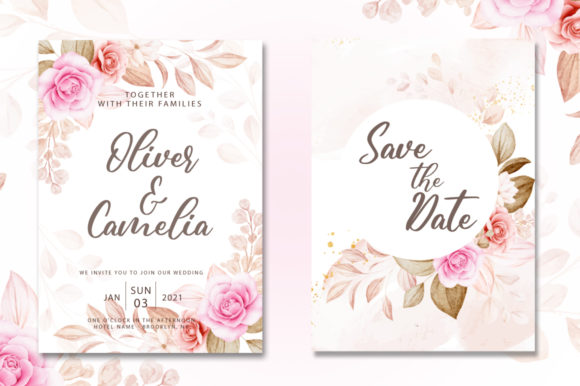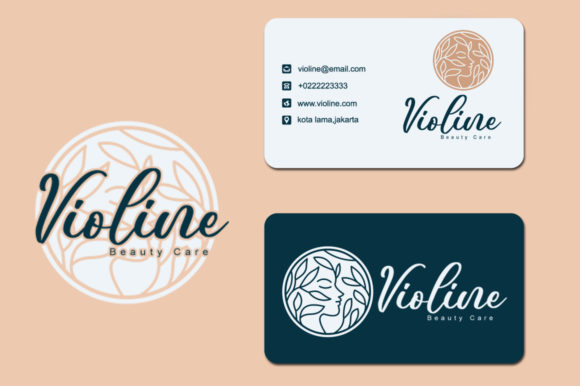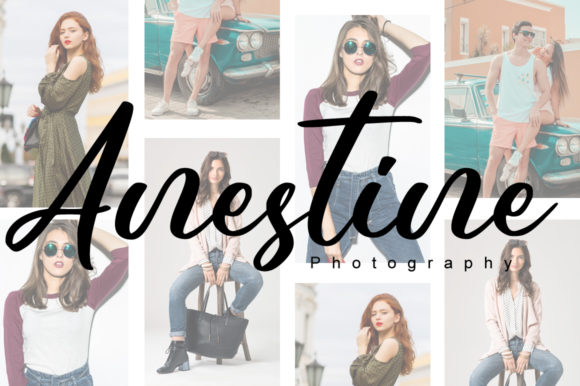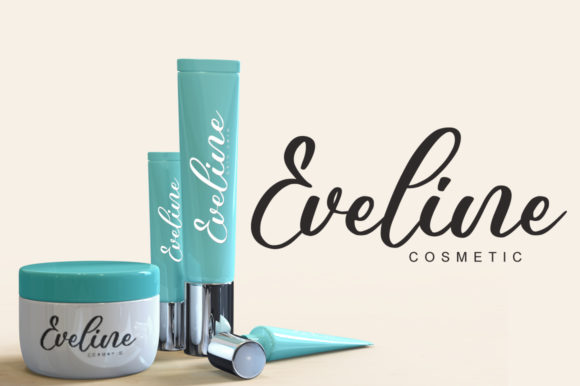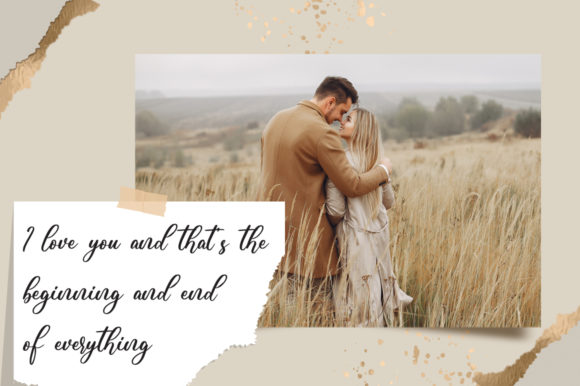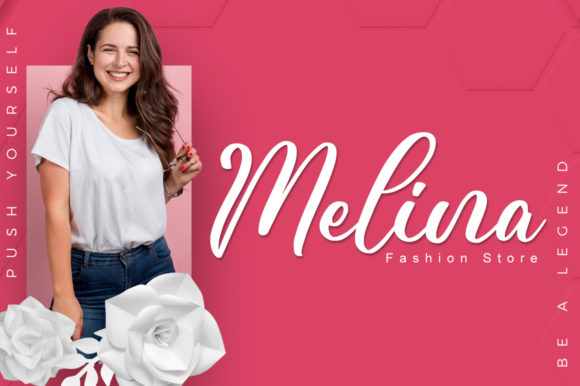
The Beauty of Beautifully Font: A Designer’s Dream Come True
I still remember the time I was working on a wedding invitation project, and my client asked me to create a custom design that exuded elegance and sophistication. I spent hours scouring the internet for the perfect font, but nothing seemed quite right. That was until I stumbled upon Beautifully Font, a stunning script font that has since become a staple in my design toolkit. In this article, I’ll share my experience with Beautifully Font, its features, and how to make the most of it in various design platforms.
An Honest Review of Beautifully Font
Beautifully Font is, without a doubt, one of the most beautiful script fonts I’ve ever had the pleasure of working with. Here are some things I love about it:
- ✨ Elegant and modern design that’s perfect for logos, branding, invitations, and more
- ✅ Features alternate glyphs and ligatures for added versatility
- ✅ Perfect for creating stunning wedding designs, social media posts, and stationery
While Beautifully Font is an amazing font, there are a few quirks to be aware of:
- 🤔 Some users may find the font a bit overwhelming due to its extensive feature set
- ⚠️ As with any script font, it may not be suitable for body text or long-form reading
The Story Behind Beautifully Font
Beautifully Font was designed by a team of typographers who wanted to create a font that would inspire creativity and elegance. The font’s design is inspired by classic calligraphy and modern digital typography, making it a unique and versatile addition to any design project. While I couldn’t find any information on the actual design team, it’s clear that they put a lot of love and care into creating this stunning font.
| Font Name | Beautifully Font |
| Author | FatmaStudio |
| What is Beautifully Font? | Beautifully Font is a script font with a classy, elegant, and modern design that’s perfect for logos, branding, invitations, and more. |
In conclusion, Beautifully Font is a stunning script font that’s perfect for designers, crafters, and creative hobbyists. With its elegant and modern design, extensive feature set, and versatility, it’s an excellent addition to any design project. Whether you’re creating logos, branding, invitations, or social media posts, Beautifully Font is sure to impress.